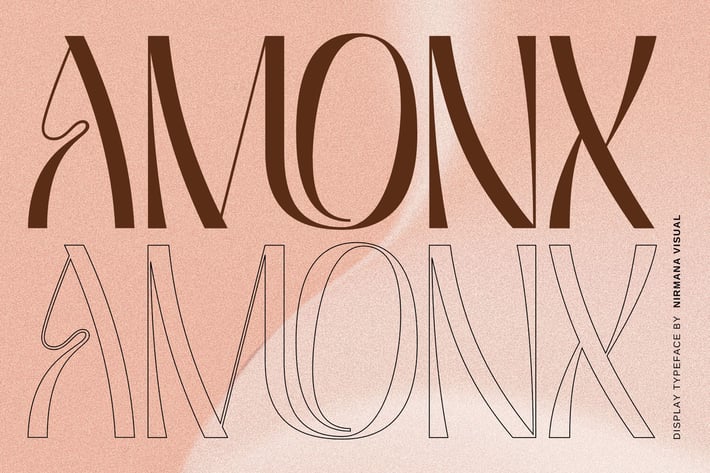
Amonx - Display Logo font
Amonx , Inspired by art nouveau Design Era.
Amonx offers beautiful typographic harmony for a diversity of design projects, including logos & branding, social media posts, advertisements & product designs.